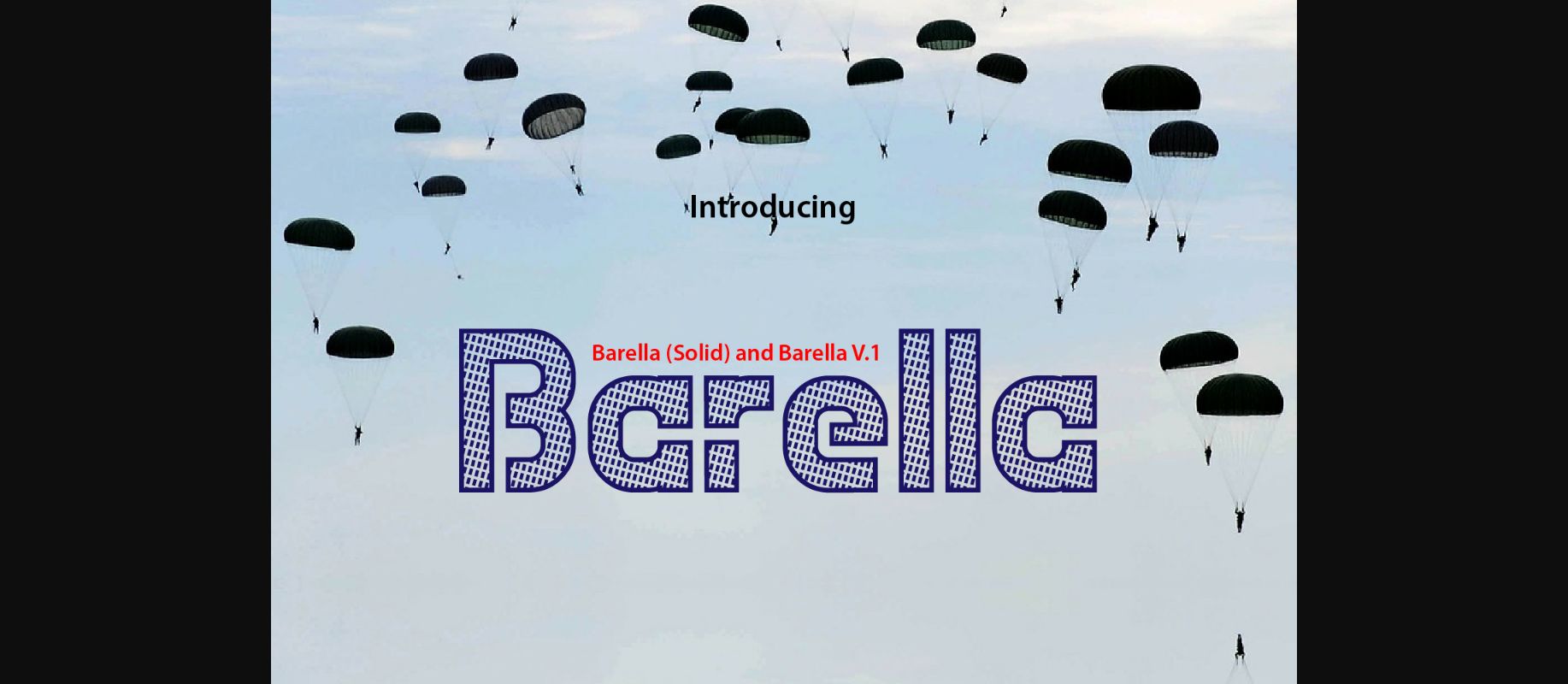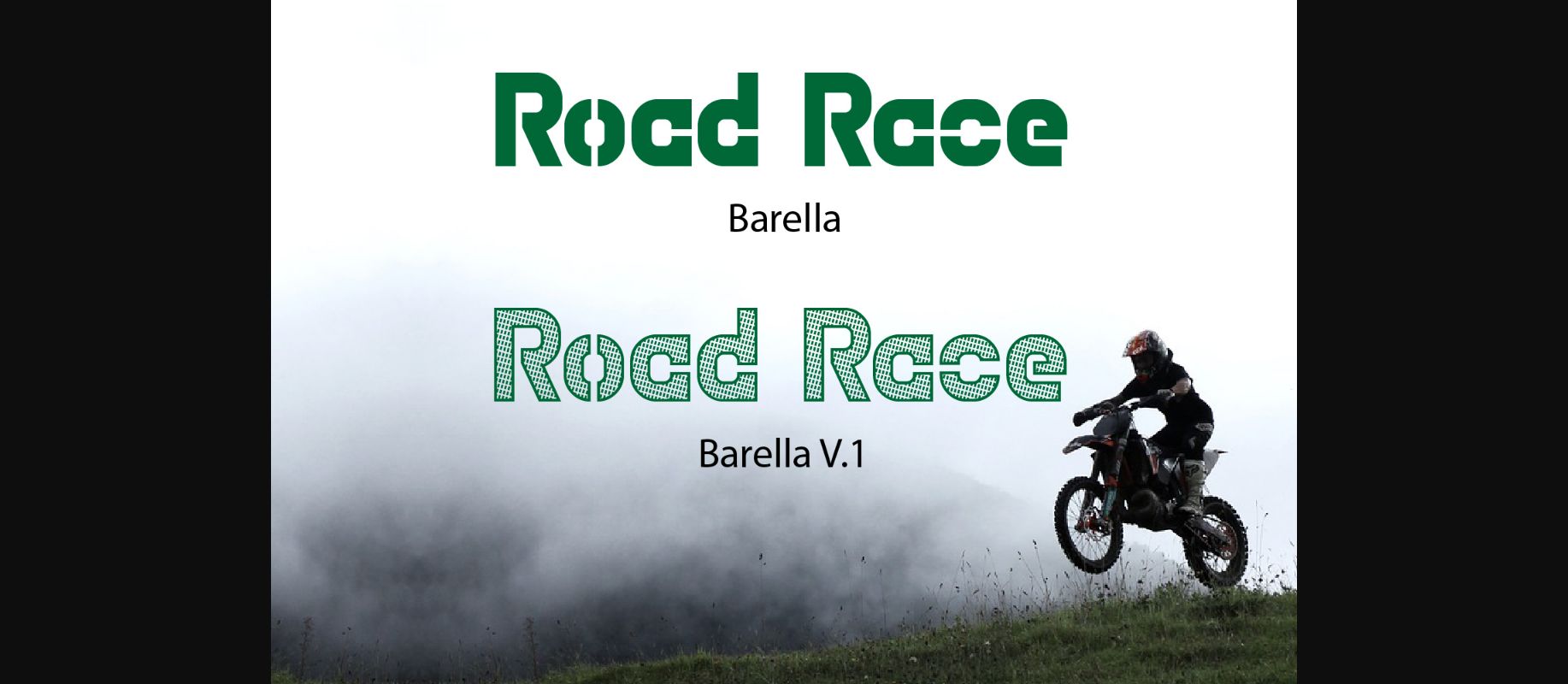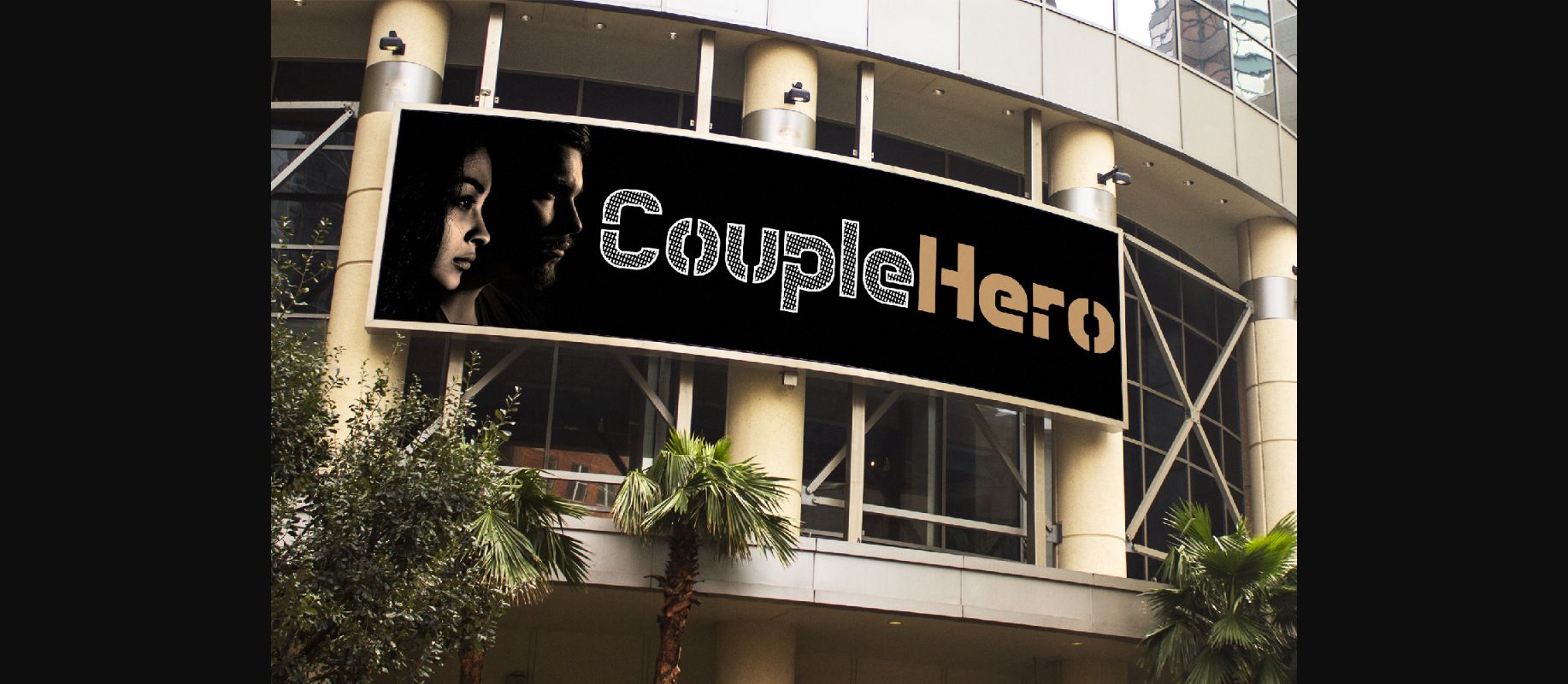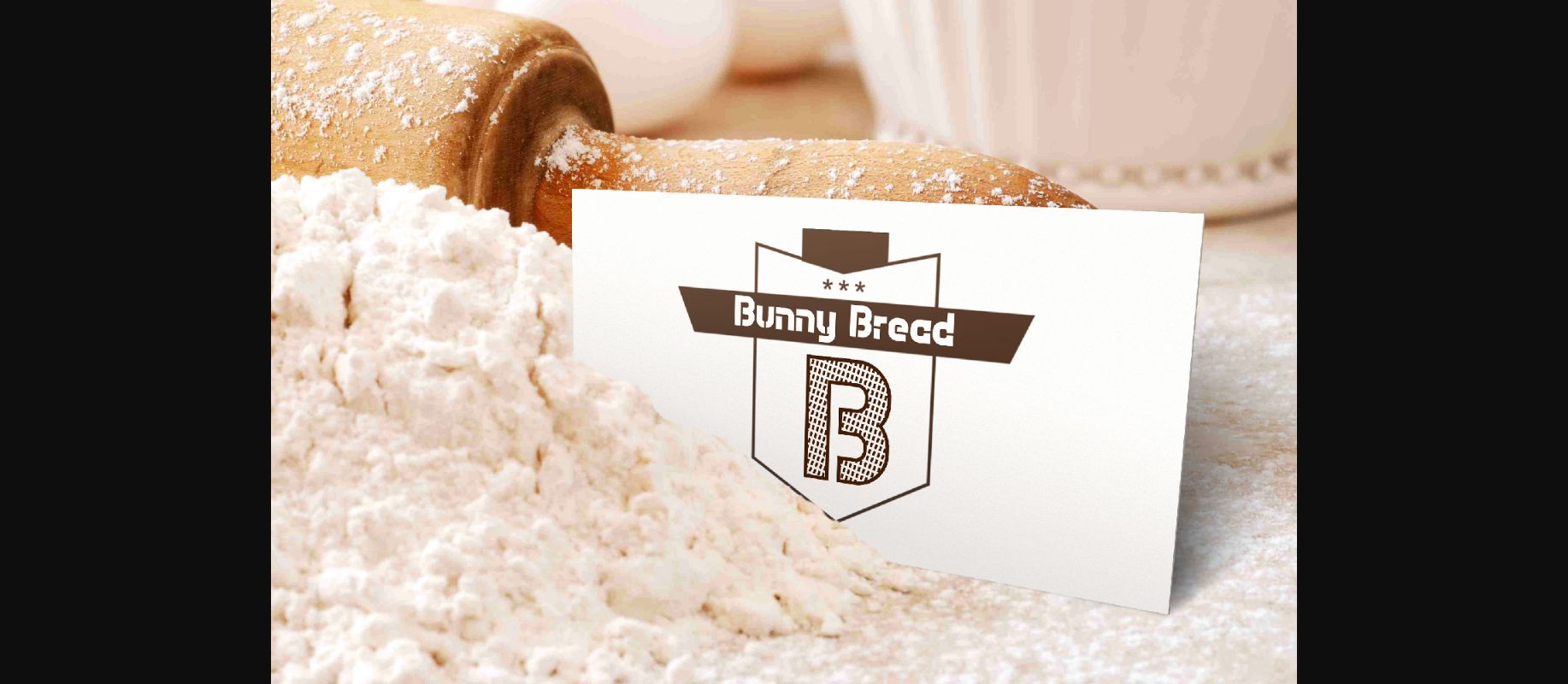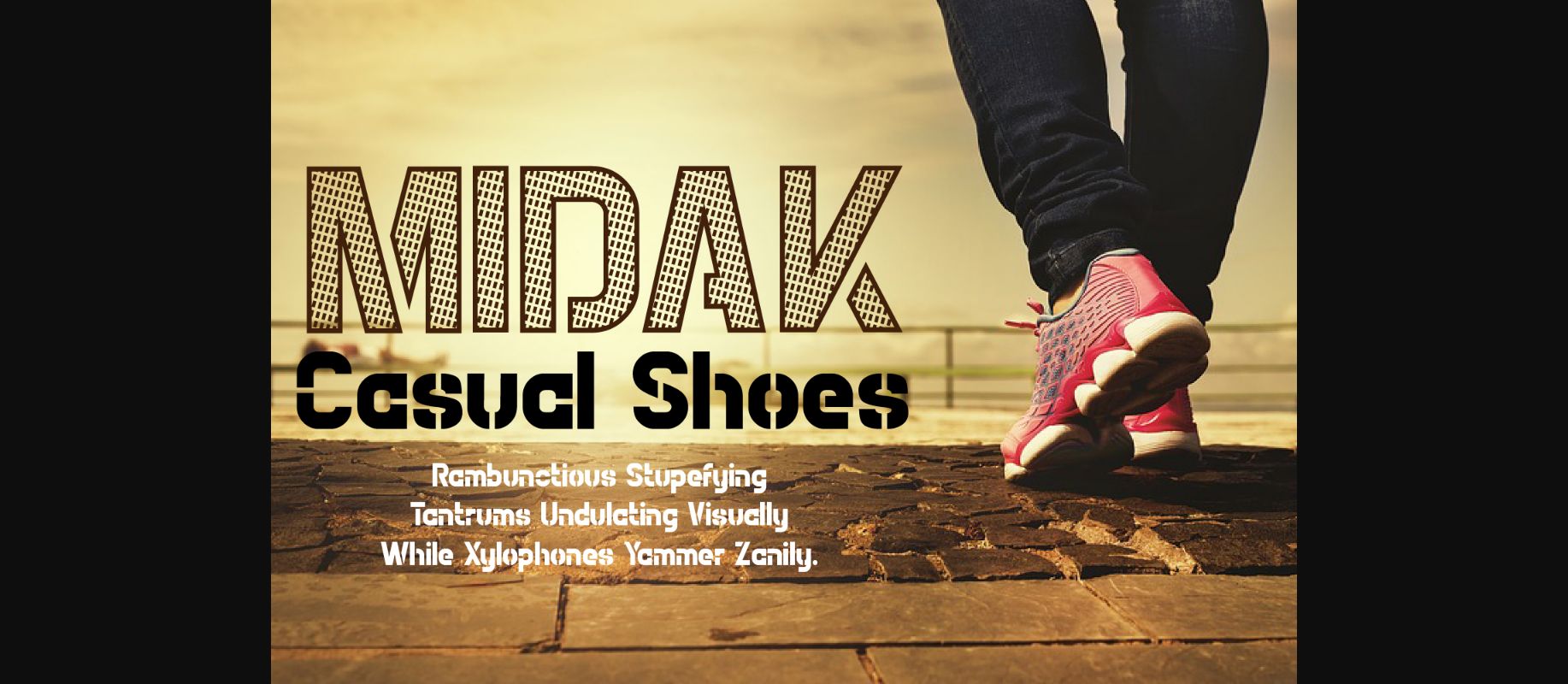
About Barella Font
Barella is an authentic decorative font. It has two different versions, use them together and create outstanding crafting projects!